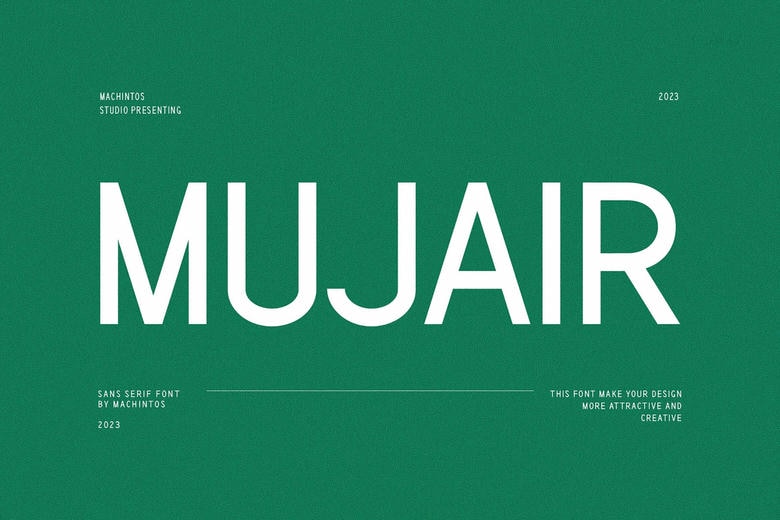
Mujair Font
Mujair is a stunning and daring sans serif font, blended in a fashionable way to add a fancy touch on the headlines and logotype projects. This typeface is intensive, bold, and energetic and it can give your workloads a lot of retro flavor.
Mujair Sans Serif Font